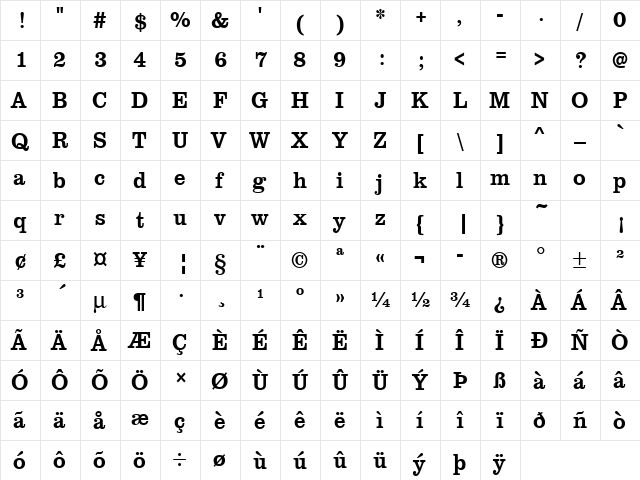
URWClarendonTExtNar Regular Font Preview
URWClarendonTExtNar Regular
Design Context for URWClarendonTExtNar Typeface
URWClarendonTExtNar combines the readability of serif typography with the visual weight of a slab construction, resulting in a typeface that feels both authoritative and approachable.
Works well in editorial design, news publishing, impactful branding, and poster typography.
Pro Tip: Try URWClarendonTExtNar set tight in headlines for a classic editorial feel. Its slab serifs create strong horizontal rhythm that anchors a page layout.